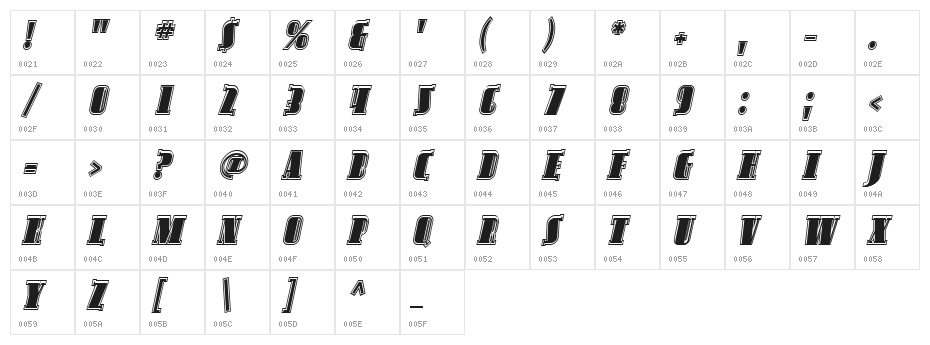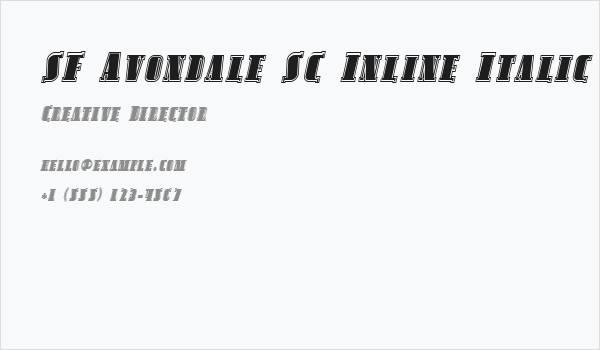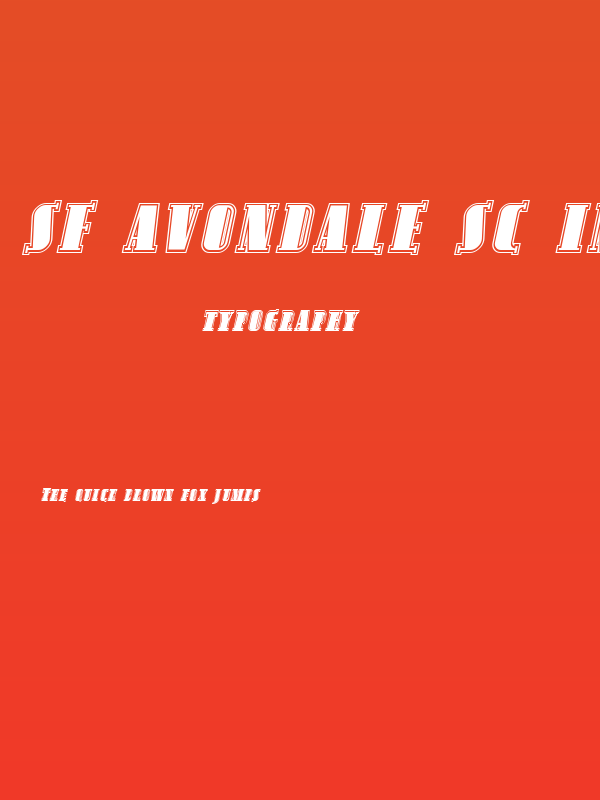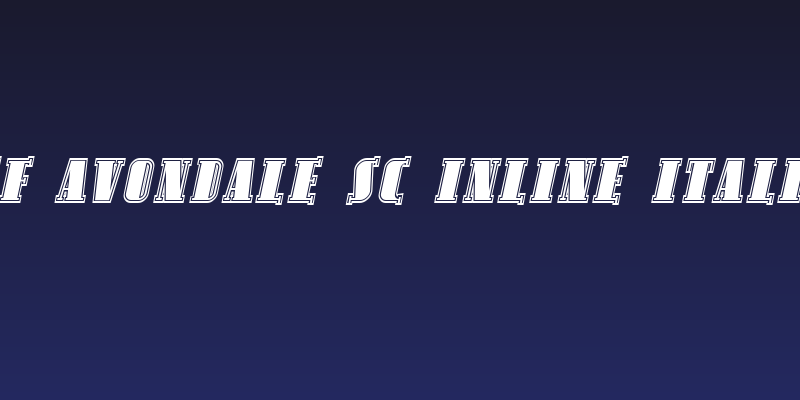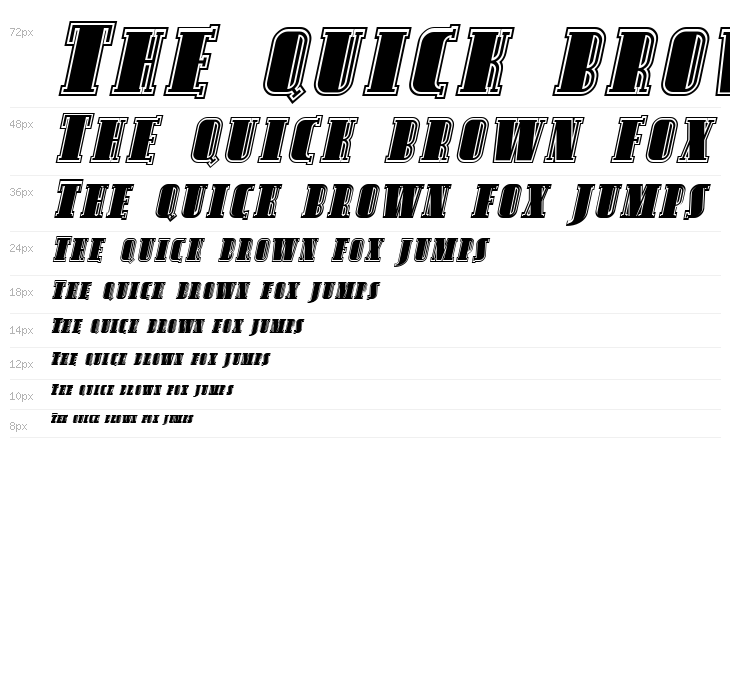
SF Avondale SC Inline Italic Font
SF Avondale SC Inline Italic Description
This font features a bold and dynamic design with an inline style that adds depth and dimension to each character. The italic slant gives it a sense of motion and elegance, making it stand out in any design. The uppercase and lowercase letters are consistent in style, with sharp angles and clean lines that create a modern and sophisticated look. The numbers and special characters are equally well-crafted, maintaining the overall aesthetic of the font. This font is perfect for projects that require a strong visual impact and a touch of sophistication.
Proposed ProjectsIdeal for branding, posters, headlines, and any design that needs a bold statement.